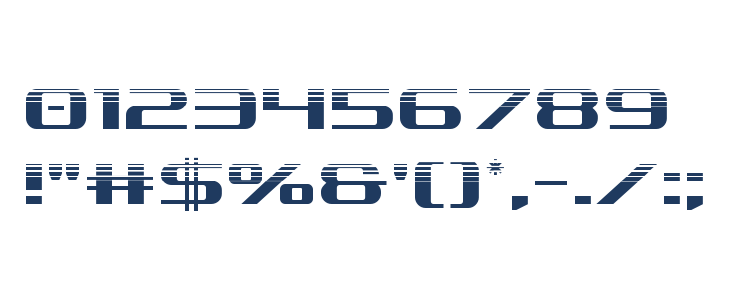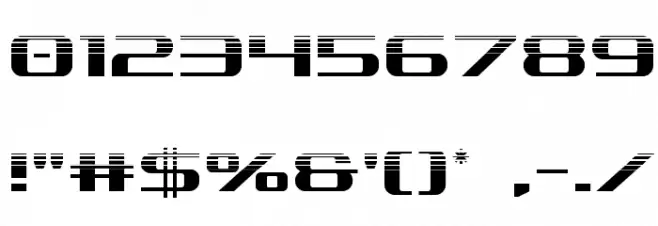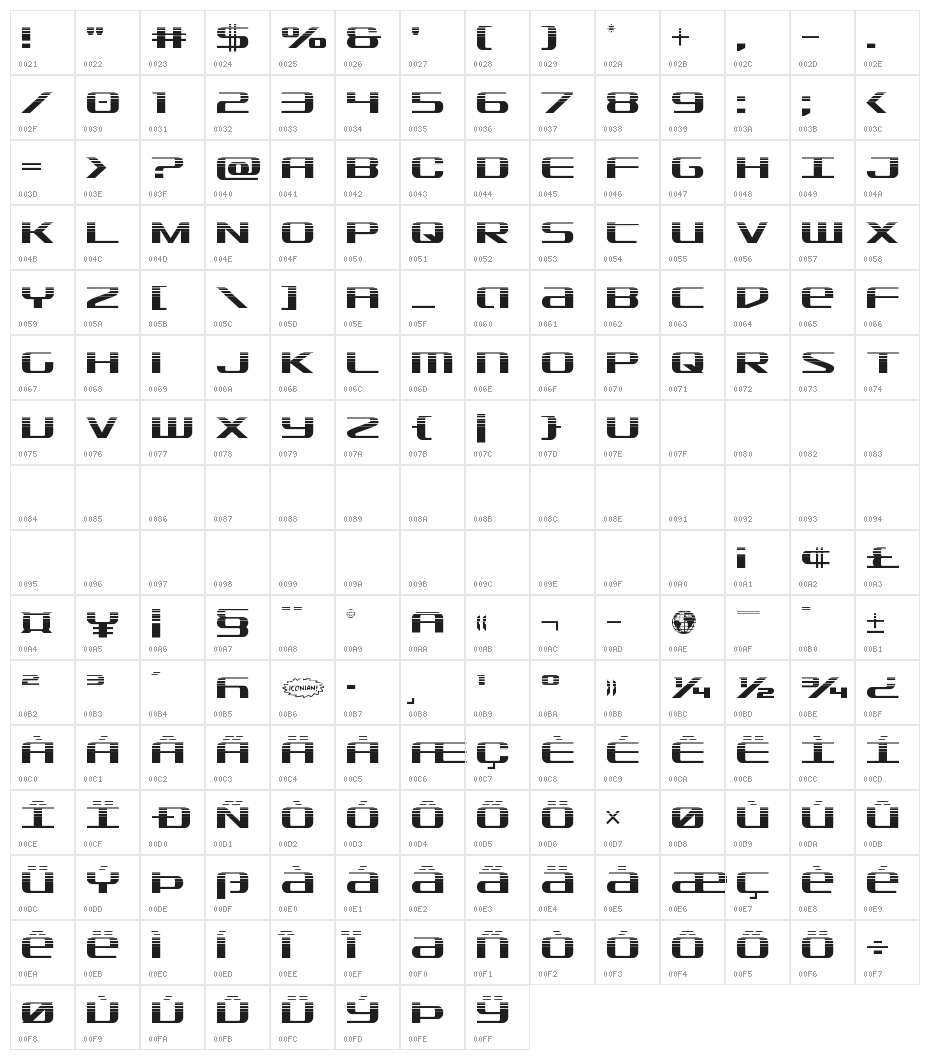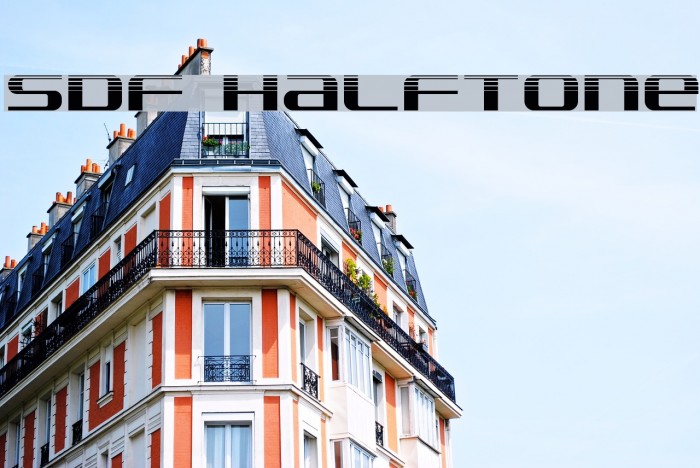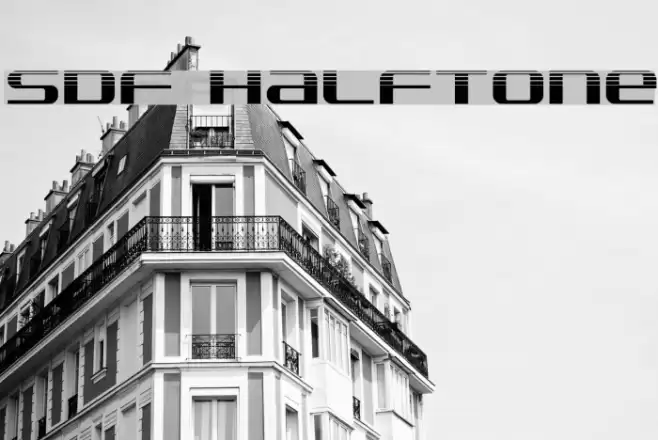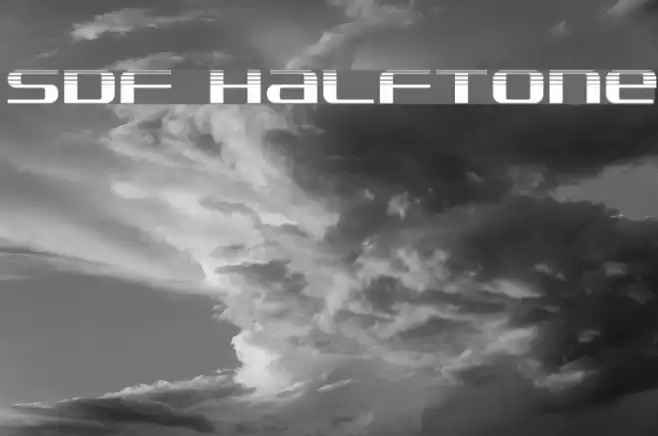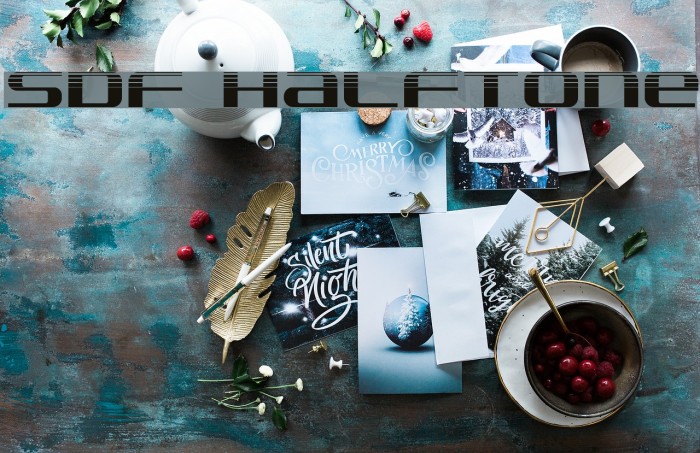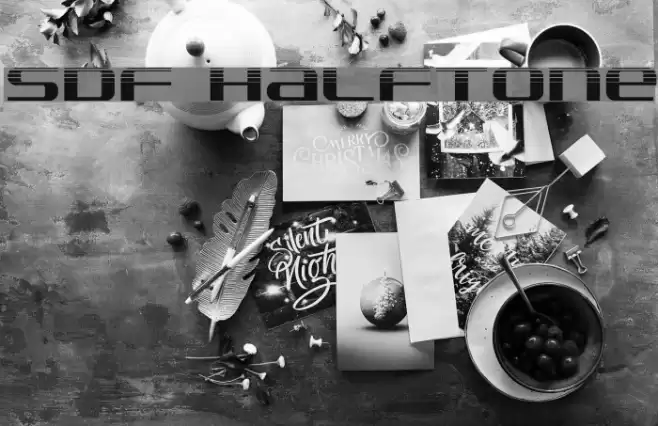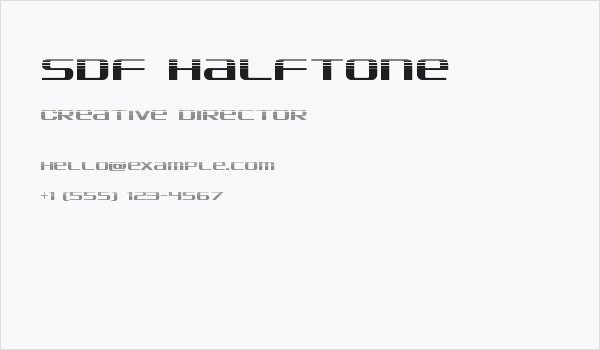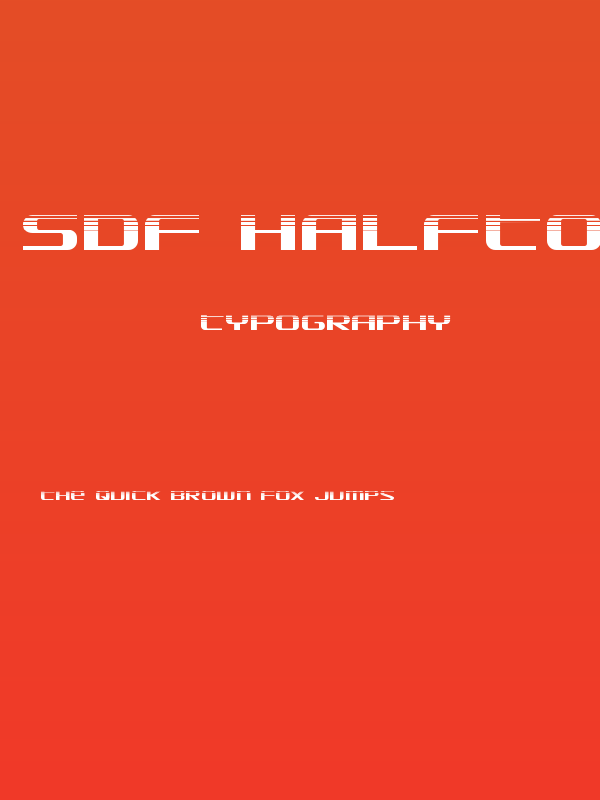
This font features a unique halftone effect, creating a modern and dynamic appearance. The characters are bold and geometric, with a distinctive pattern of horizontal lines that give a sense of movement and energy. The uppercase and lowercase letters maintain a consistent style, while the numbers and special characters are designed to complement the overall aesthetic. This font's striking design makes it ideal for projects that require a contemporary and eye-catching look.
| Proposed Projects | Ideal for digital art, modern posters, branding, and innovative advertising campaigns. |